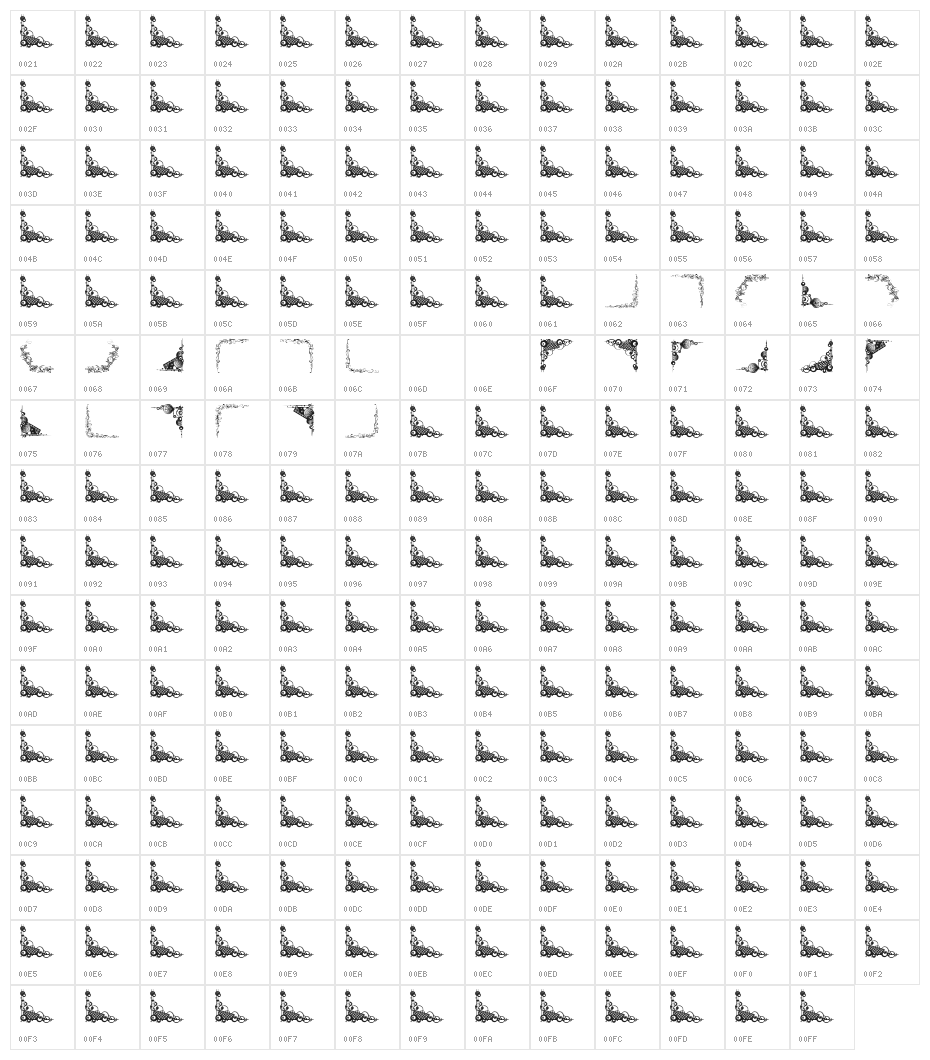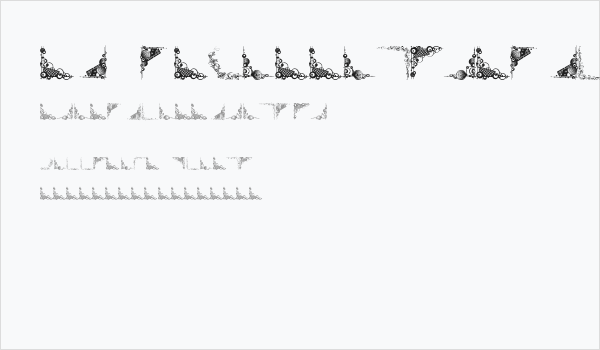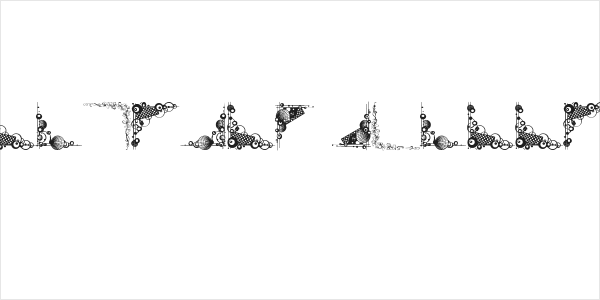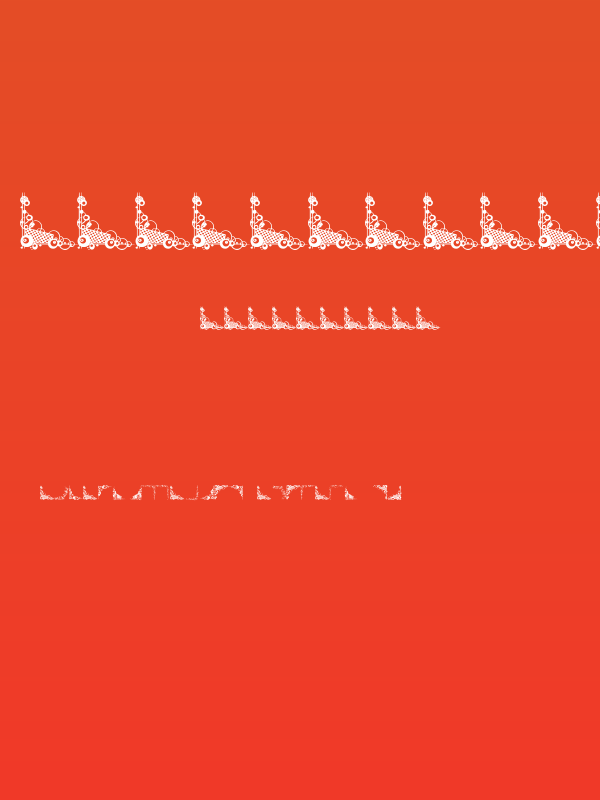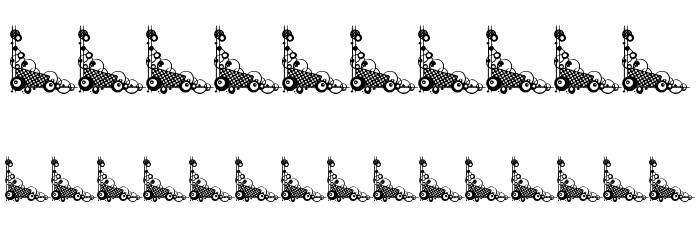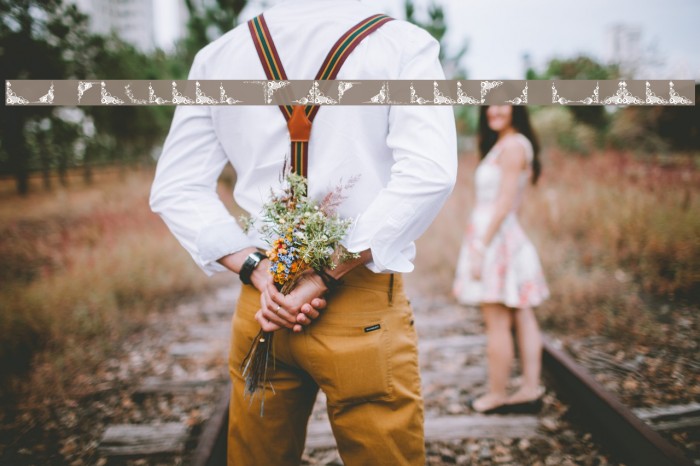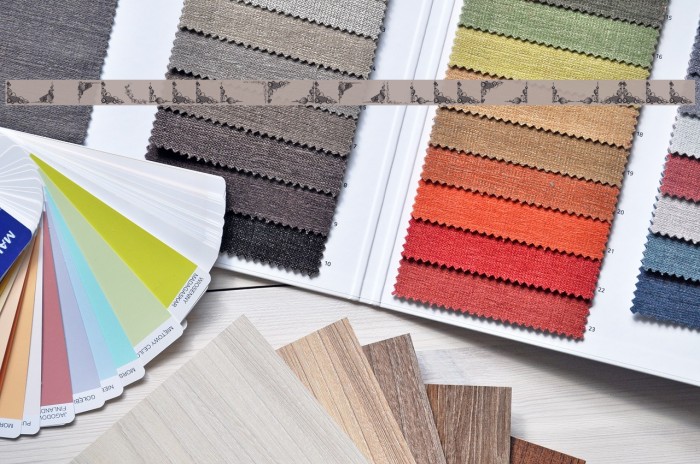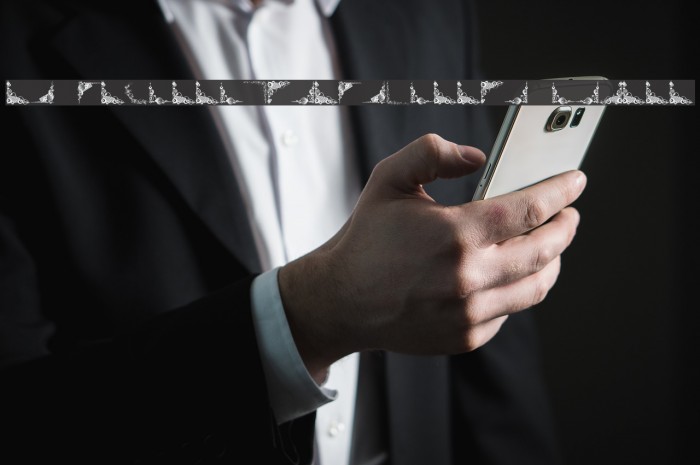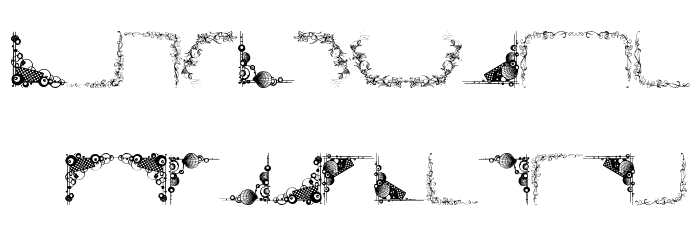
Vintage Decorative Corners 22 Font
Vintage Decorative Corners 22 Description
Highly ornate, decorative corner elements with intricate vintage flourishes and filigree patterns, designed to mimic antique embellishments rather than traditional letterforms or numerals.
| Overall Style | Vintage, Decorative |
| Use Case | Borders, Frames, Decorative accents |
| Proposed Projects | Invitations, certificates, book covers, decorative borders, vintage-themed designs. |